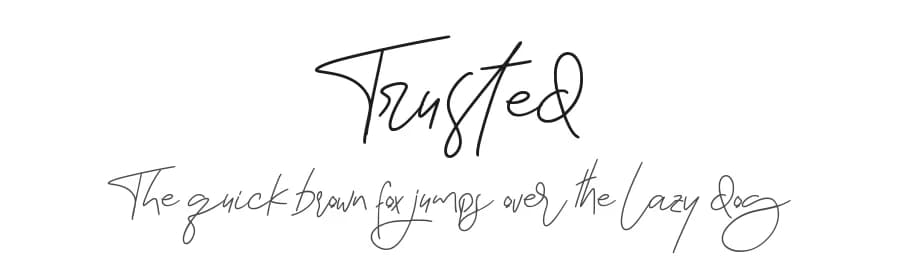
About Trusted Font
Trusted ships with 3 OpenType features you can switch on in apps that support them (Illustrator, InDesign, Affinity, Figma, CSS font-feature-settings).
Trusted Font is a script font that shines as a display or heading face. Pair it with a clean sans-serif or serif font for body text β the contrast creates a clear hierarchy while the two styles stay balanced and easy to read.
Trusted Font